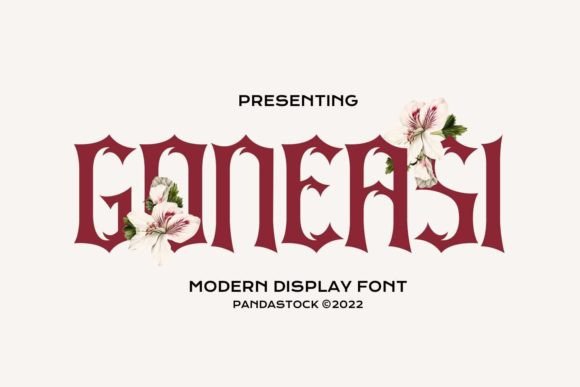
**Goneasi: The Epitome of Class and Elegance for Captivating Titles**
Unleash the power of Goneasi, a display font that embodies sophistication and style. Each letter is a masterpiece, meticulously crafted to evoke a sense of grace and allure. Goneasi possesses an enchanting aura that transcends the mundane, transforming ordinary words into unforgettable statements.
**A Symphony of Elegance for Your Creative Endeavors**
Goneasi is not just a font; it's an artistic tool that empowers you to elevate your creations to new heights. Its timeless charm lends itself effortlessly to a myriad of design projects, from captivating flyer titles to stunning logos that leave a lasting impression.
**Indulge in the Versatility of Goneasi**
Goneasi is a font that transcends boundaries, effortlessly adapting to any design concept. Its versatility knows no limits, whether you seek a touch of classic elegance or a dash of contemporary flair. Unleash your creativity and let Goneasi guide you to design masterpieces that resonate with your audience.
**The Perfect Choice for Making a Statement**
Goneasi is more than just a font; it's a statement piece that commands attention. Its bold presence ensures that your words will be noticed and remembered. Goneasi empowers you to create titles that captivate, headlines that inspire, and logos that establish a memorable brand identity.